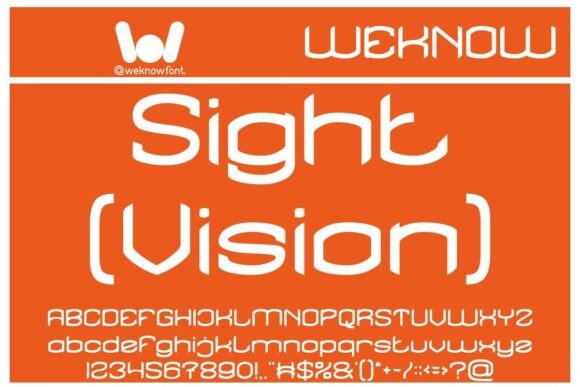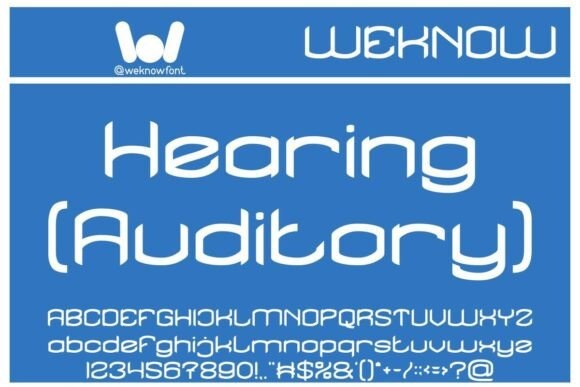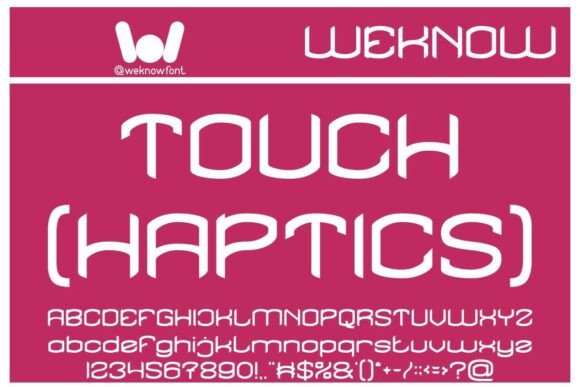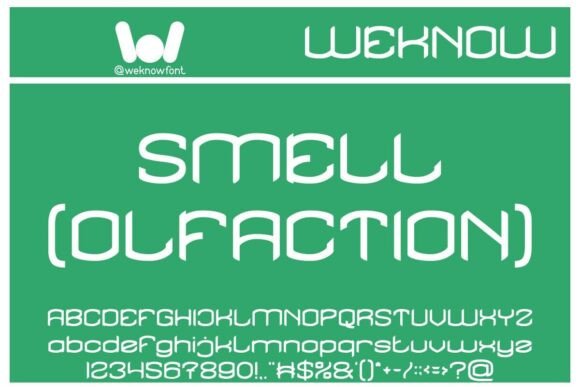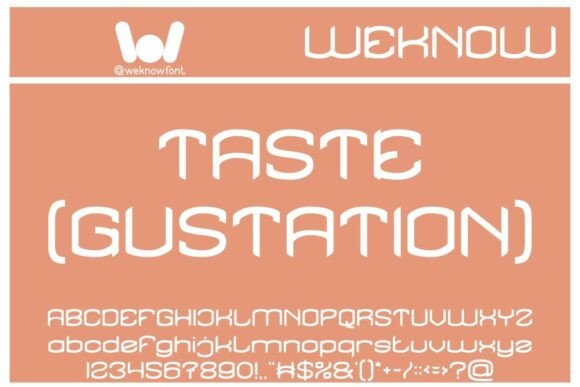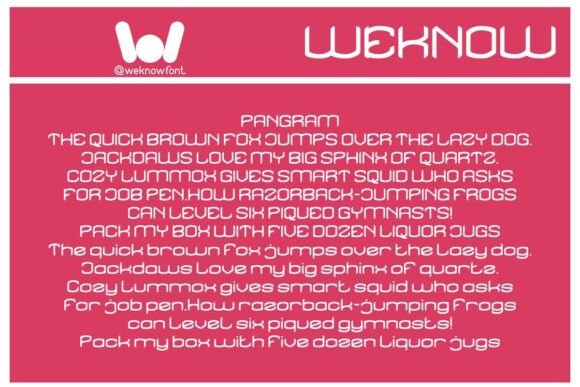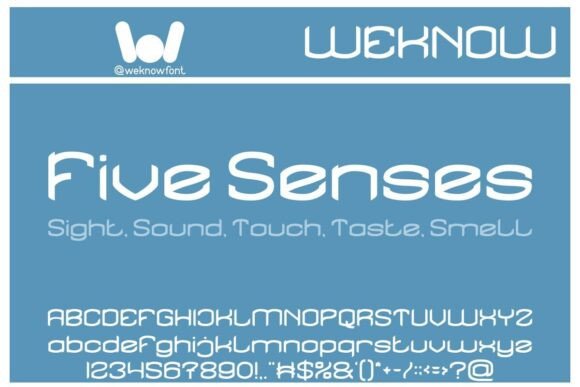
Unleash Your Creativity with Five Senses Font: A Revolutionary Display Typeface
In the world of typography, fonts are more than just a means of communication – they’re an expression of style, personality, and creativity. For designers, crafters, and artists, finding the perfect font can make all the difference in bringing their vision to life. If you’re looking for a typeface that embodies innovation, eclecticism, and a touch of futurism, look no further than the Five Senses font.
A Unique Fusion of Tradition and Innovation
Five Senses is an eclectic display font that defies conventions by blending techno-modern aesthetics with a dash of gothic appeal. This unique fusion of elements creates a captivating visual experience that’s both nostalgic and forward-thinking. The font’s geometric fluidity and futuristic flourishes make it an ideal choice for corporate and brand identities, logos, and logotypes. Whether you’re designing a sleek and modern brand or a bold and edgy artwork, Five Senses is sure to leave a lasting impression.
Endless Possibilities for Creative Expression
One of the most exciting aspects of Five Senses is its versatility. This font is not limited to a specific medium or industry – it’s designed to shine in a wide range of applications. Imagine using Five Senses to:
- Create striking magazine and book covers that grab attention
- Design bold and eye-catching logos and logotypes for brands and businesses
- Bring music videos, movies, and video games to life with dynamic typography
- Elevate your social media presence with stunning Instagram and YouTube graphics
- Give your comics and cartoons a unique and captivating visual style
A Font that Shines in Headlines and Beyond
Five Senses is more than just a typeface – it’s a statement piece. Its bold and futuristic design makes it perfect for headlines, where it can take center stage and demand attention. But it’s not just limited to headlines – this font can be used in a variety of contexts, from body text to captions, to create a cohesive and visually appealing design.
Why Choose Five Senses Font?
So, what sets Five Senses apart from other fonts? Here are just a few reasons why designers and crafters are falling in love with this revolutionary typeface:
- Unique and distinctive design: Five Senses boasts a one-of-a-kind aesthetic that’s sure to turn heads
- Versatility: This font can be used in a wide range of applications, from print to digital media
- High legibility: Despite its bold and futuristic design, Five Senses remains highly legible, even at smaller sizes
- Easy to pair: This font pairs well with a variety of other typefaces, making it easy to create harmonious and visually appealing designs
Embracing the Extraordinary with Five Senses Font
In a world where creativity and self-expression are valued more than ever, Five Senses font offers a bold and exciting way to bring your ideas to life. Whether you’re a designer, crafter, or artist, this font invites you to dare to excite the senses and push the boundaries of what’s possible. So why settle for ordinary when you can have extraordinary? Embrace the Five Senses font and discover a world of limitless creative possibility.
Get Ready to Make a Statement with Five Senses Font
With its show-stopping design, versatility, and high legibility, Five Senses font is poised to become a favorite among designers and crafters. Whether you’re working on a commercial project or a personal creative endeavor, this font is sure to make a statement. So go ahead, take the leap, and experience the thrill of creating something truly extraordinary with Five Senses font.